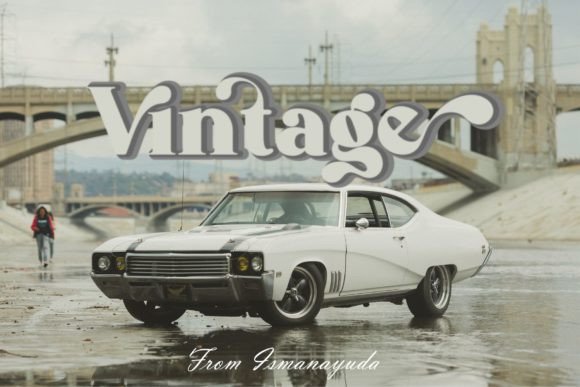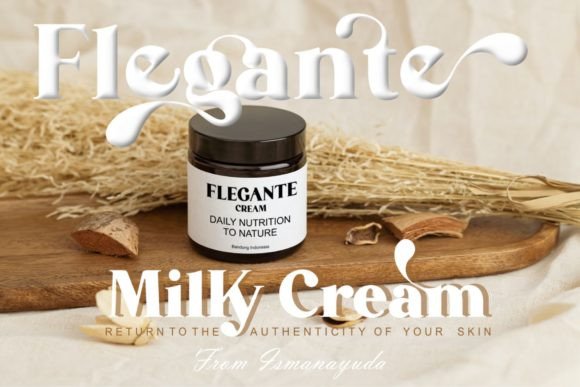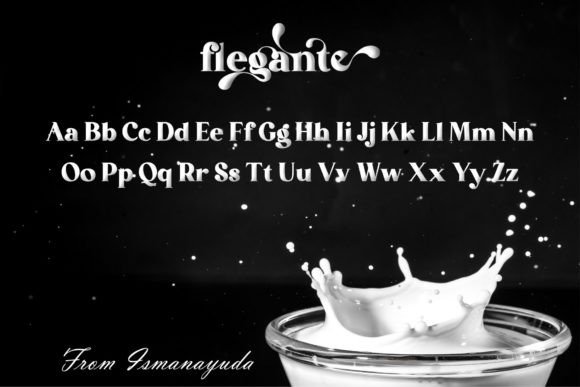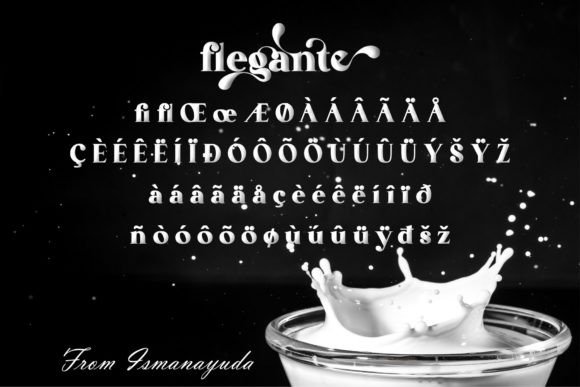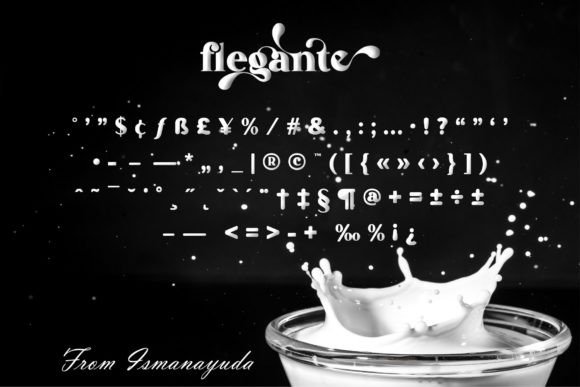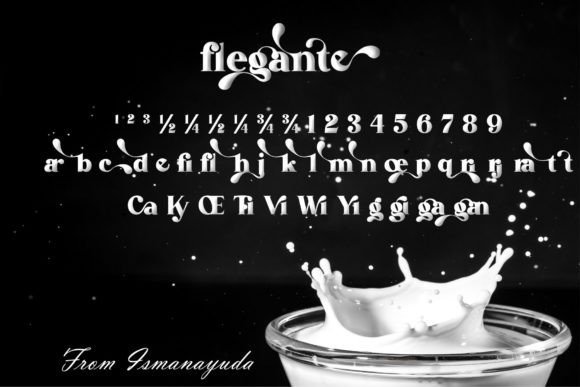
Introduction to Flegante Font
Remember that moment when you’re browsing through a vintage bookstore, and you stumble upon an old book with a stunning title page? The font is elegant, sophisticated, and speaks directly to your design soul. That’s the kind of magic the Flegante Font brings to your creative projects. With its unique blend of traditional serif elements and modern design aesthetics, this font is a game-changer for designers looking to add a touch of nostalgia to their work.
Whether you’re working on a branding project, editorial design, or any other creative endeavor, the Flegante Font is a valuable resource to have in your arsenal. Its high-quality design makes it perfect for projects that require a level of sophistication and elegance. Plus, with its transparent background, you can easily use it as a design resource without worrying about any background clutter.
Key Features of Flegante Font
- This high-quality font features a transparent background, allowing for easy customization and versatility in design.
- The font size ranges from 12pt to 72pt, making it suitable for a wide range of design applications.
- Flegante Font has a high resolution of 300 DPI, ensuring crisp and clear typography in both digital and print media.
- This unique font features a clean and elegant design, making it perfect for creative projects that require a touch of sophistication.
- Flegante Font is an excellent design resource for graphic designers, digital artists, and anyone looking for a high-quality font for their creative project.
Honest Review: Flegante Font
I recently stumbled upon the Flegante Font while searching for a unique design resource for a creative project. I was immediately drawn to its elegant and sophisticated feel, making it perfect for a variety of applications. The high-quality design is a major plus, and the transparent background allows for seamless integration with any background image or color.
- What works well: ✨ The Flegante Font’s versatility and wide range of uses, from formal to informal projects, are impressive. It’s also incredibly easy to download and install, making it a convenient addition to any design arsenal.
- What works well: ✨ The font’s clean and minimalist design makes it perfect for creating a professional and polished look in any design project.
One potential limitation of the Flegante Font is its limited character set. While it’s still a high-quality font, it may not be suitable for projects that require a wide range of characters and symbols. Additionally, some users may find the font’s elegance to be too formal for certain creative projects.
Overall, I’m impressed with the Flegante Font and would recommend it to designers looking for a high-quality, elegant font for their creative projects. With its transparent background and wide range of uses, it’s a valuable addition to any design resource library. Whether you’re working on a free download project or a paid design gig, the Flegante Font is sure to impress.
Flegante Font
Tips for Getting the Most Out of Flegante Font
When using Flegante Font, be sure to use it on a transparent background to get the best results. This will allow you to easily combine the font with other design elements and create a cohesive look. Additionally, consider using the font in combination with other design resources, such as graphics and shapes, to create a unique and stylish design.